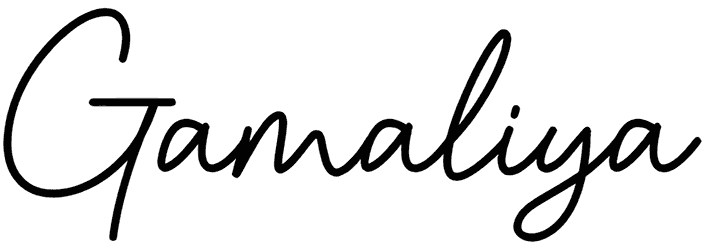
Gamaliya Font
Gamaliya is a complete collection of handwritten letters and numbers that create a free and creative mood and can provide an attractive showcase for any type of project you choose. This autograph font can bring elegance…
Gamaliya is a complete collection of handwritten letters and numbers that create a free and creative mood and can provide an attractive showcase for any type of project you choose.
This autograph font can bring elegance along with a contemporary style to your design to inspire viewers and win their trust. So if you run your business around magazines, fantasy posters, or abstract themes, Gamaliya should be one of the fonts you’re looking for.